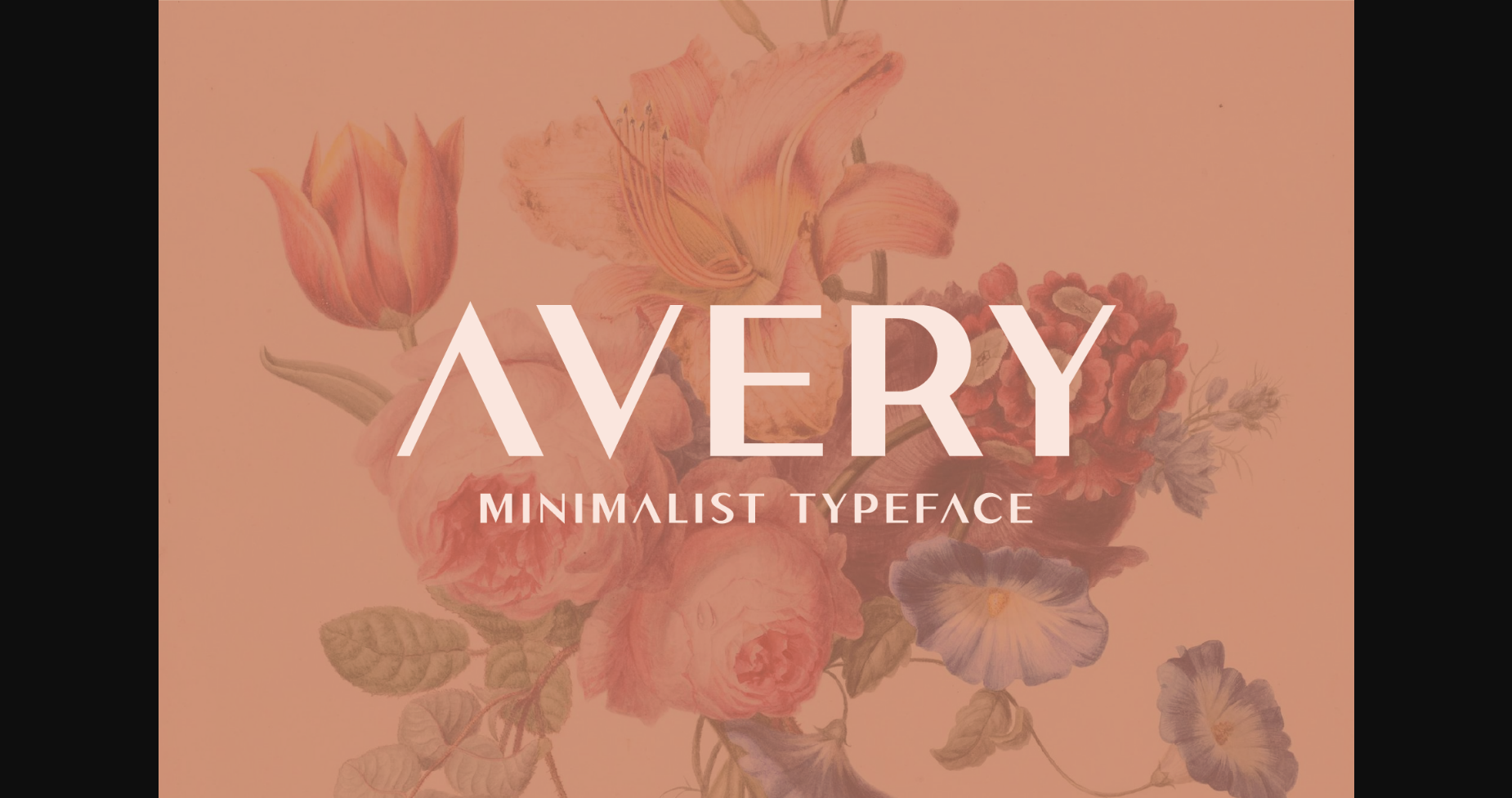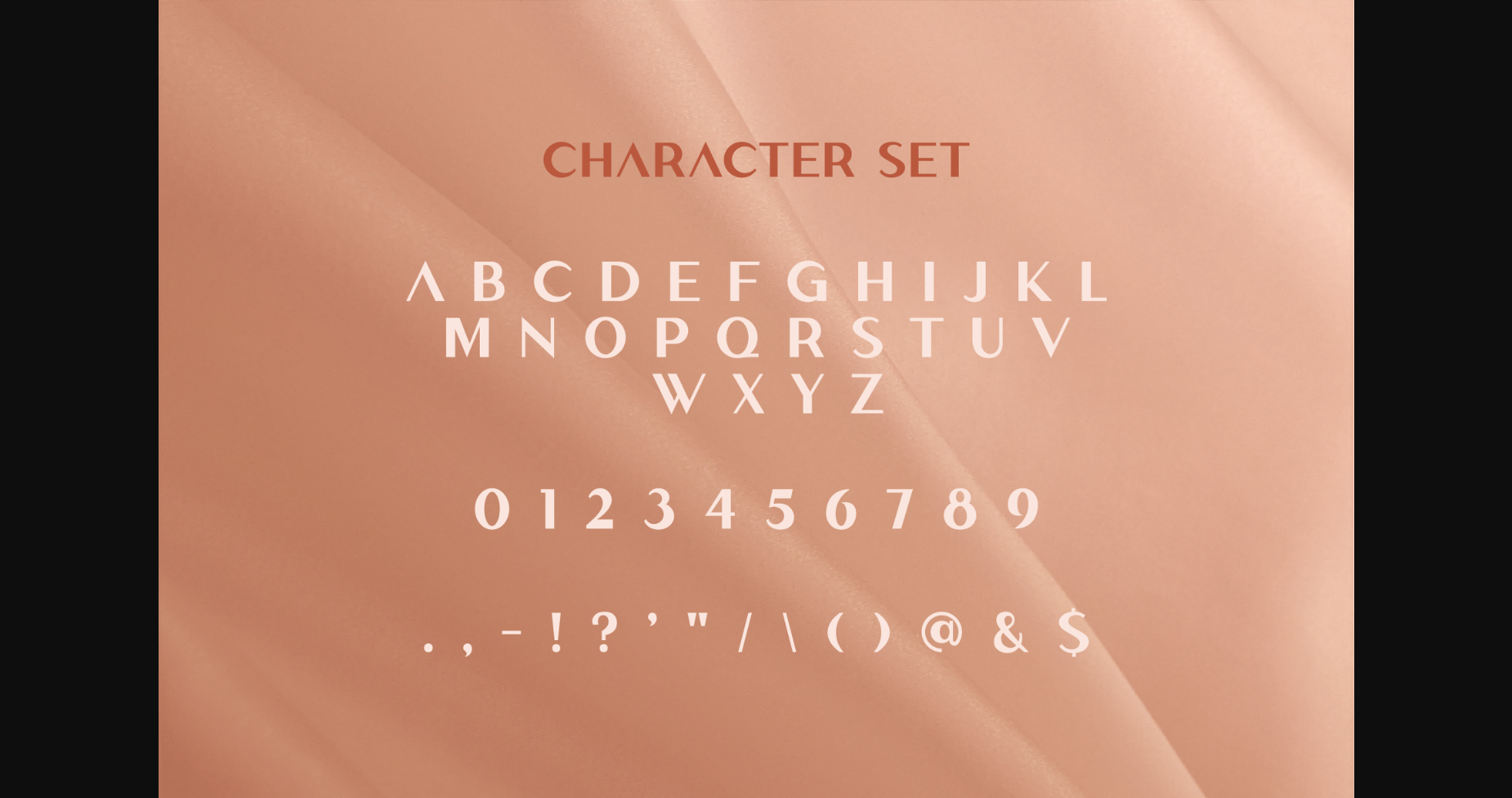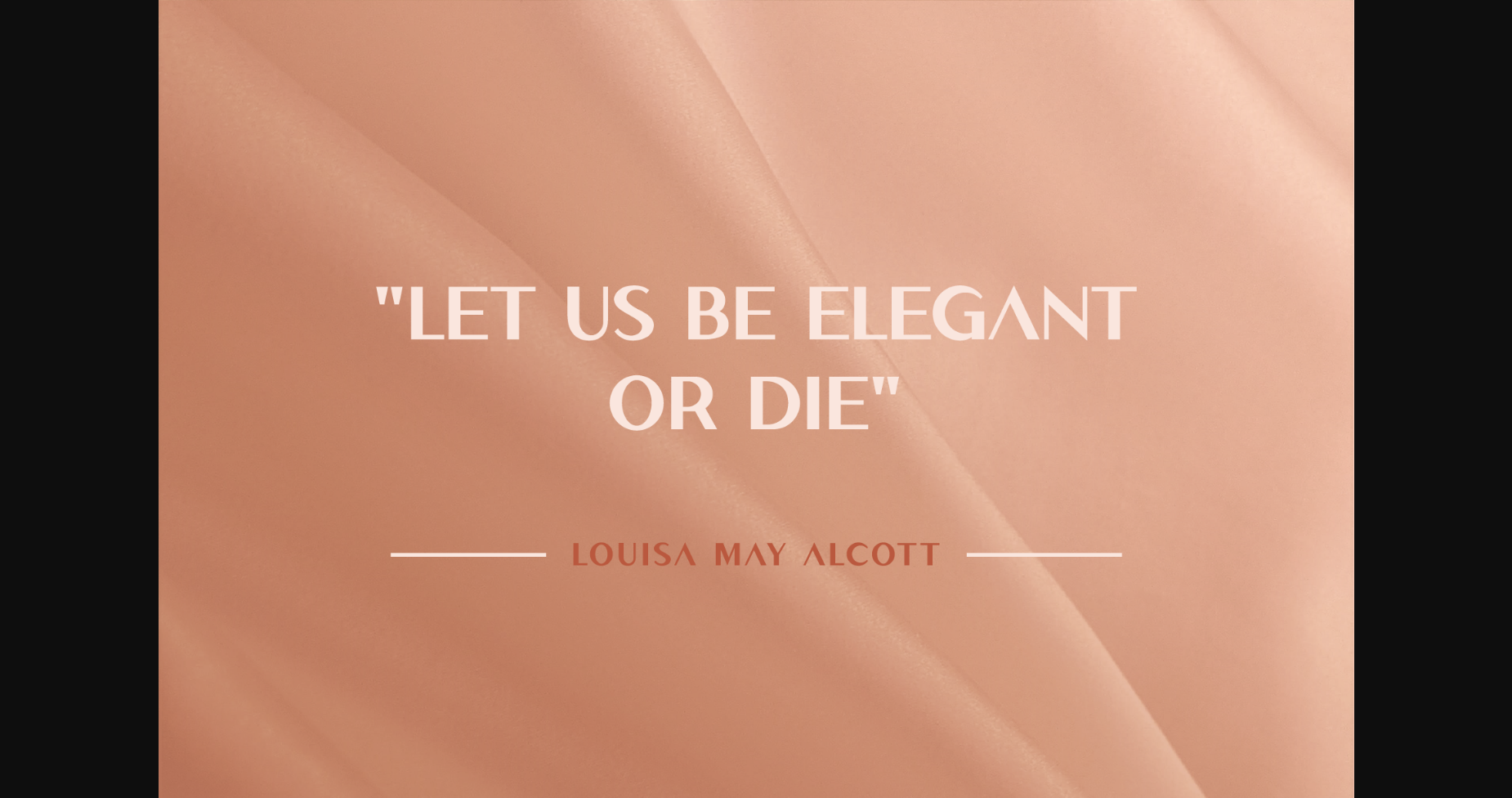
Avery Font
About Avery Font
Introducing “Avery” This is a minimal yet modern sans serif font that has a minimal yet elegant appearance, that features clean lines with a luxury feel, this minimal luxury sans serif is the perfect choice for titles, headers, social media posts, logo designs, quotes, banners, and so on.